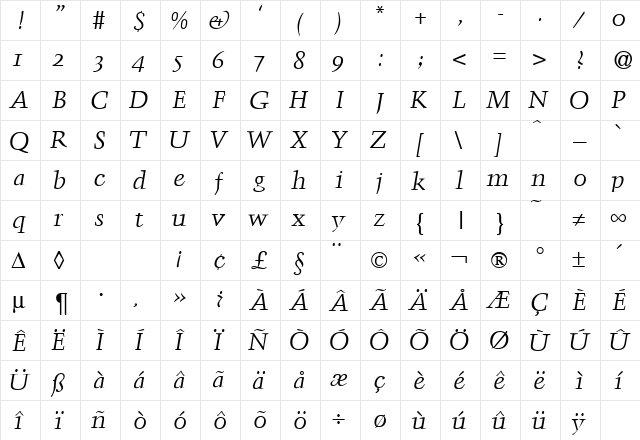
TroubadourOsf RegularItalic
Design Context for TroubadourOsf Typeface
TroubadourOsf takes a measured approach to typography — its balanced proportions and neutral character make it a reliable workhorse for both digital and print work. The slanted form adds forward momentum and visual energy.